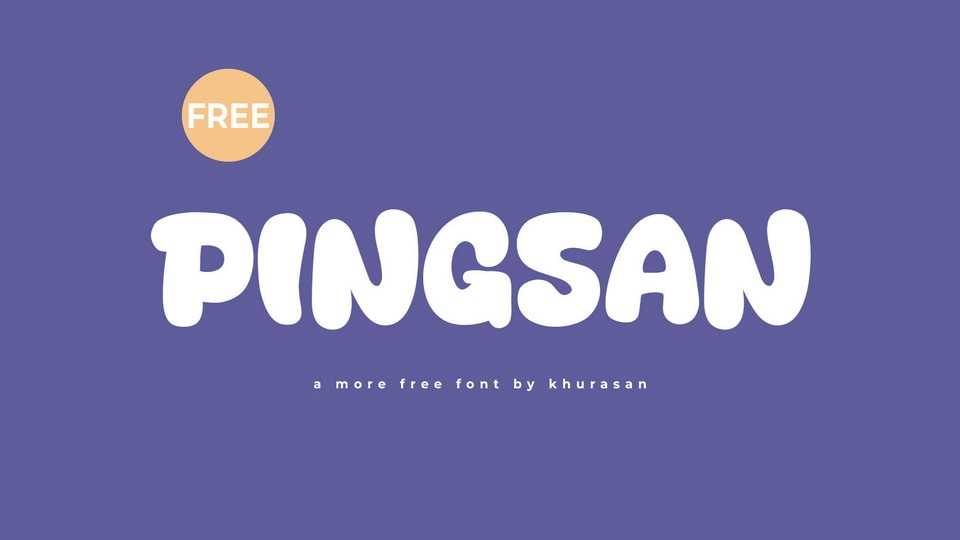
Download Pingsan font, a delightfully smooth and playful hand-drawn typeface that infuses your designs with a cheerful and approachable spirit. Pingsan font is the perfect choice for projects that seek a warm and inviting touch, from friendly logos to whimsical greeting cards.